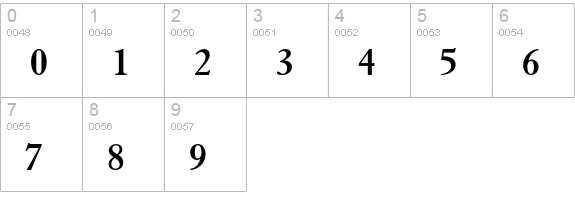
Granjon Bold is a strong, high-contrast variant in the Granjon typeface family \xE2\x80\x94 well suited to headlines, attention-grabbing titles, and strong calls-to-action.
Granjon Bold is a striking and versatile typeface that exudes confidence and elegance. With its bold strokes and expertly crafted design, Granjon Bold commands attention and makes a bold statement in any project. The classic yet modern aesthetic of this font makes it perfect for a wide range of uses, from headlines and titles to branding and marketing materials. What sets Granjon Bold apart is its exceptional readability and timeless appeal. Whether used in print or digital media, this font delivers a powerful visual impact that is sure to leave a lasting impression on viewers. Its clean lines and balanced proportions make it a reliable choice for any design project that requires a strong and impactful typeface. The best part about Granjon Bold is that it is available for free download at FontsMarket.com. This means that you can easily access this high-quality font and use it in your projects without any cost. Don't miss out on the opportunity to enhance your designs with the bold and sophisticated look of Granjon Bold - download it today and elevate your creations to the next level.